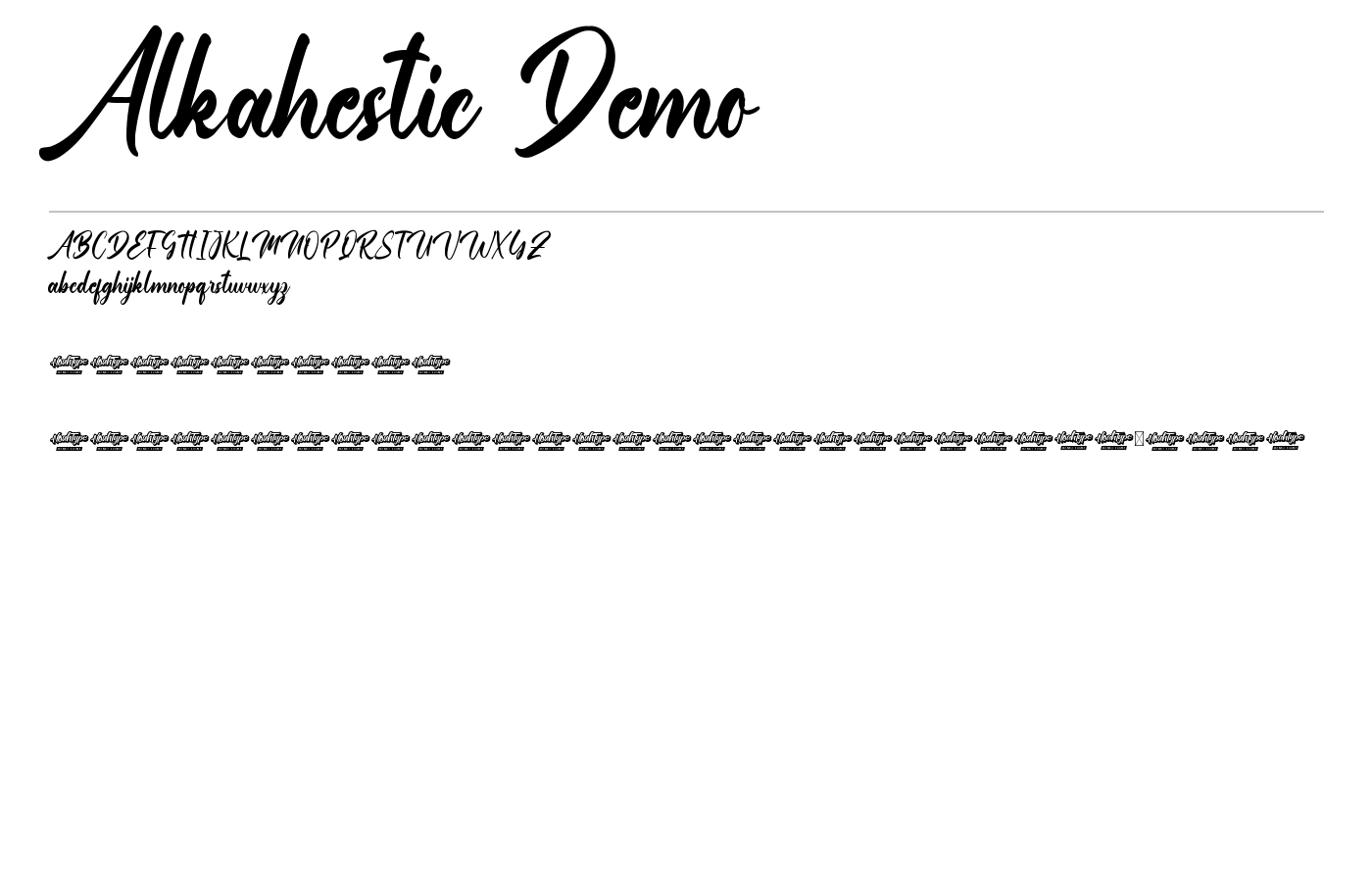
Alkahestic Demo is an elegant script font with a smooth, flowing style that mimics natural handwriting. Its moderately bold strokes and slightly condensed letterforms give it a confident yet friendly personality, making it ideal for branding, invitations, and creative headlines where a personal, handcrafted touch is desired. This font stands out with its graceful curves and readable forms, perfect for adding a sophisticated, artistic flair to any design.
Alkahestic Demo Font
About Alkahestic Demo Font
| Font family | Alkahestic Demo Font |
| Designer | Widiyanti & Sarah SP |